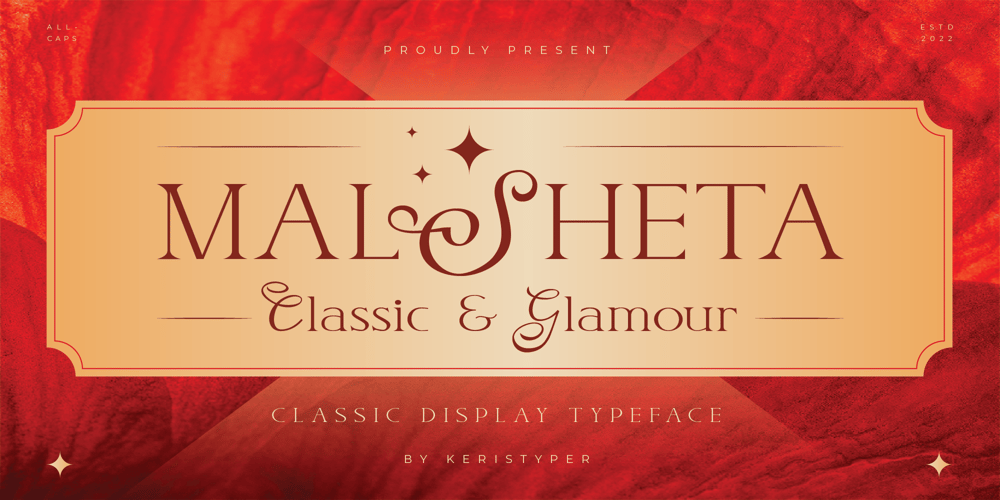
Malsheta Font Family was designed by Tezar Tantular and published by Keristyper Studio. Malsheta contains 1 styles and family package options. Malsheta font is designed by combining an elegant script font with a simple and charming serif font style that makes this font look different and unique. This font is good for logo design, Social media, Movie Titles, Books Titles, short text even long text letters, and good for your secondary text font with sans or serif.Featured: Standard Uppercase & Lowercase Numeral & Punctuation Multilingual : ä ö ü Ä Ö Ü ß ¿ ¡ Alternate & Ligature PUA encoded We recommend programs that support the OpenType feature and the Glyphs panel such as Adobe applications or Corel Draw. so you can use all the variations of the glyphs.Hope you enjoy our fonts!